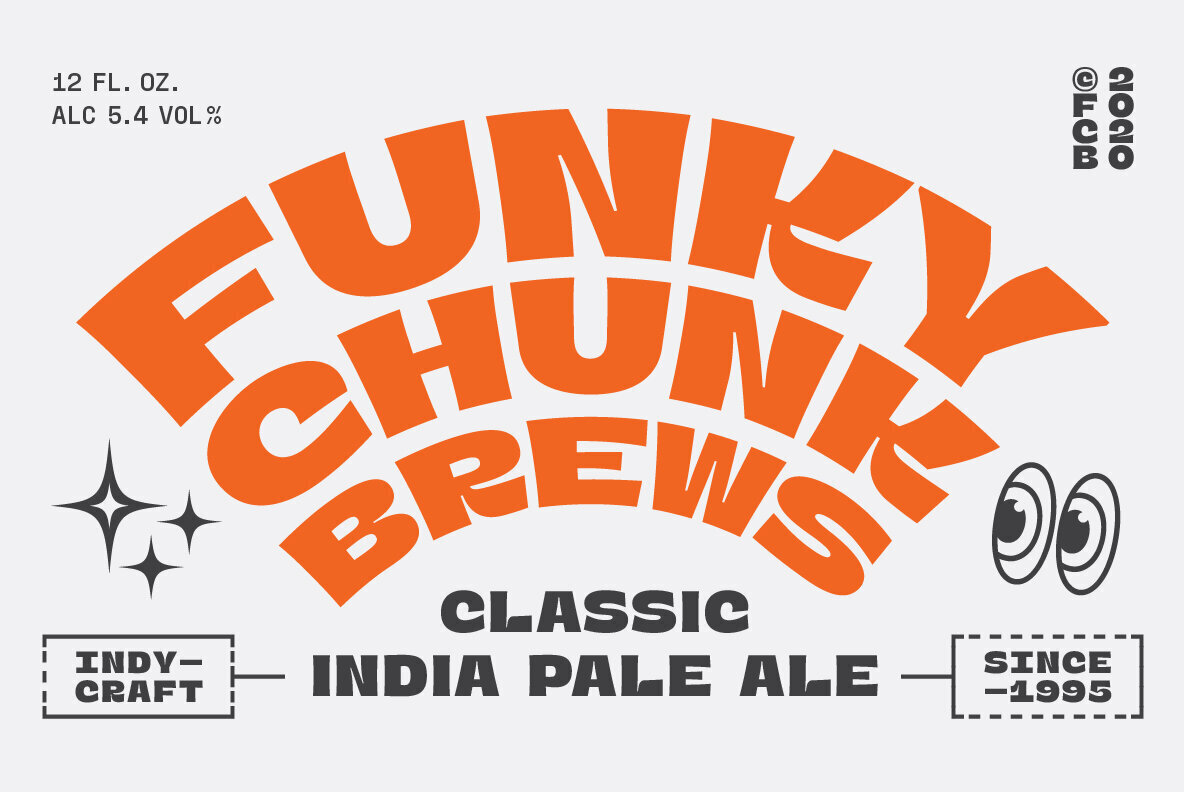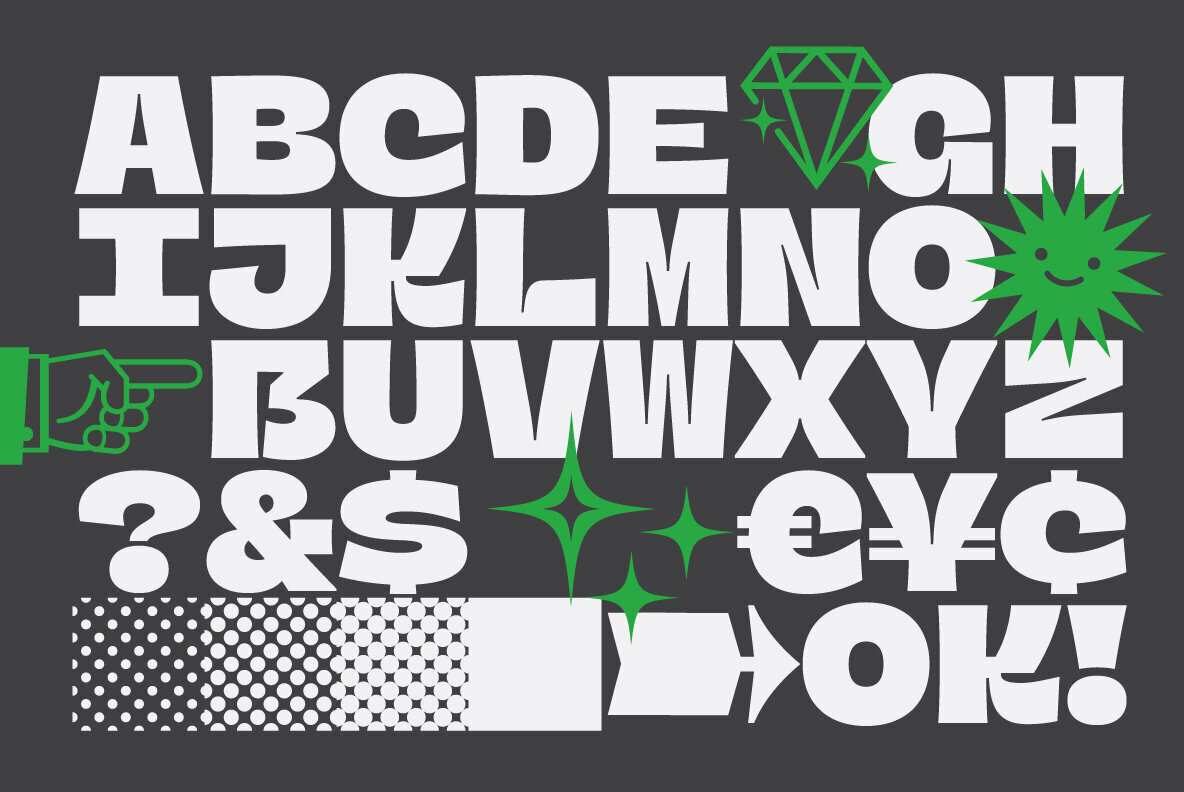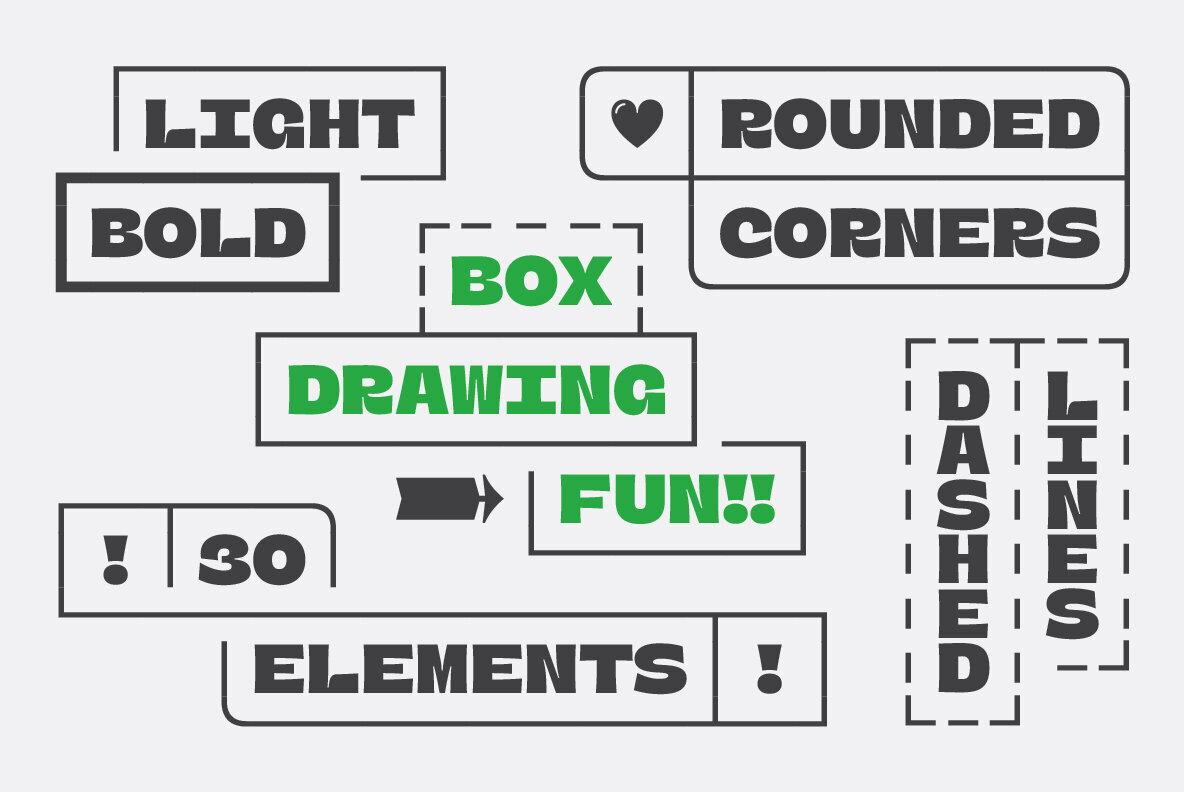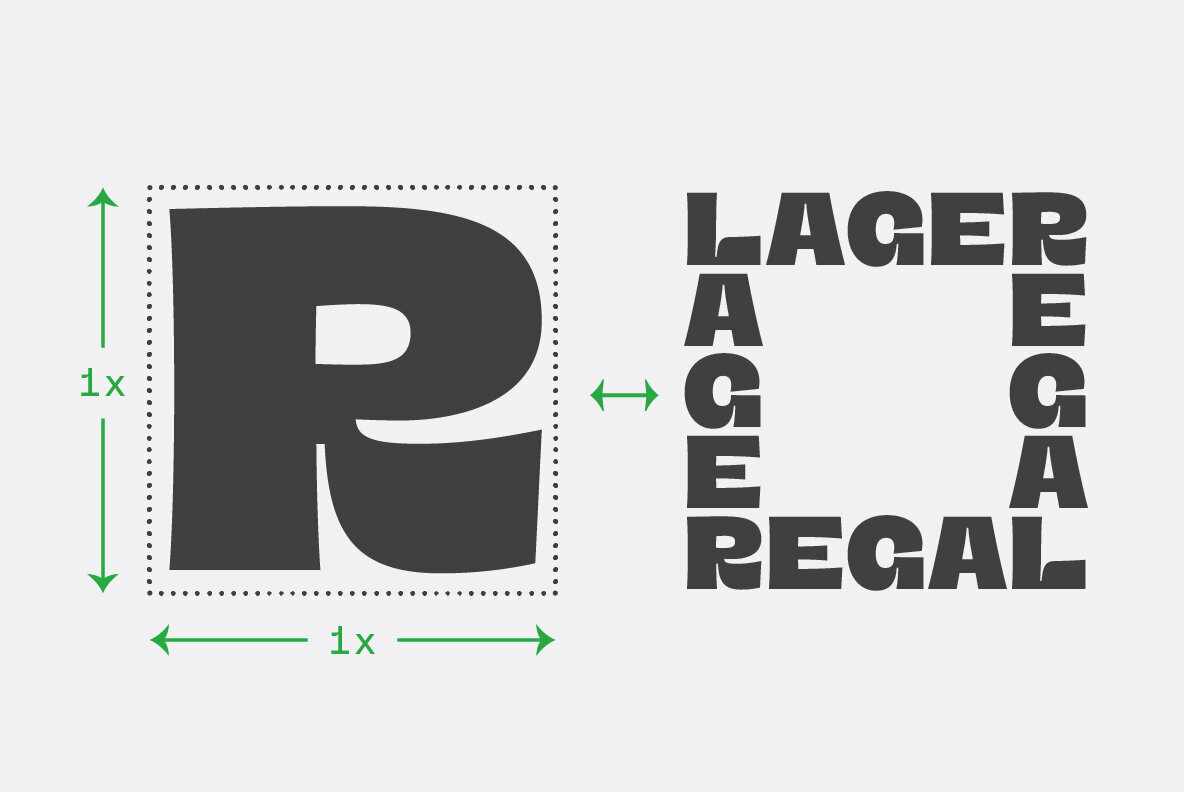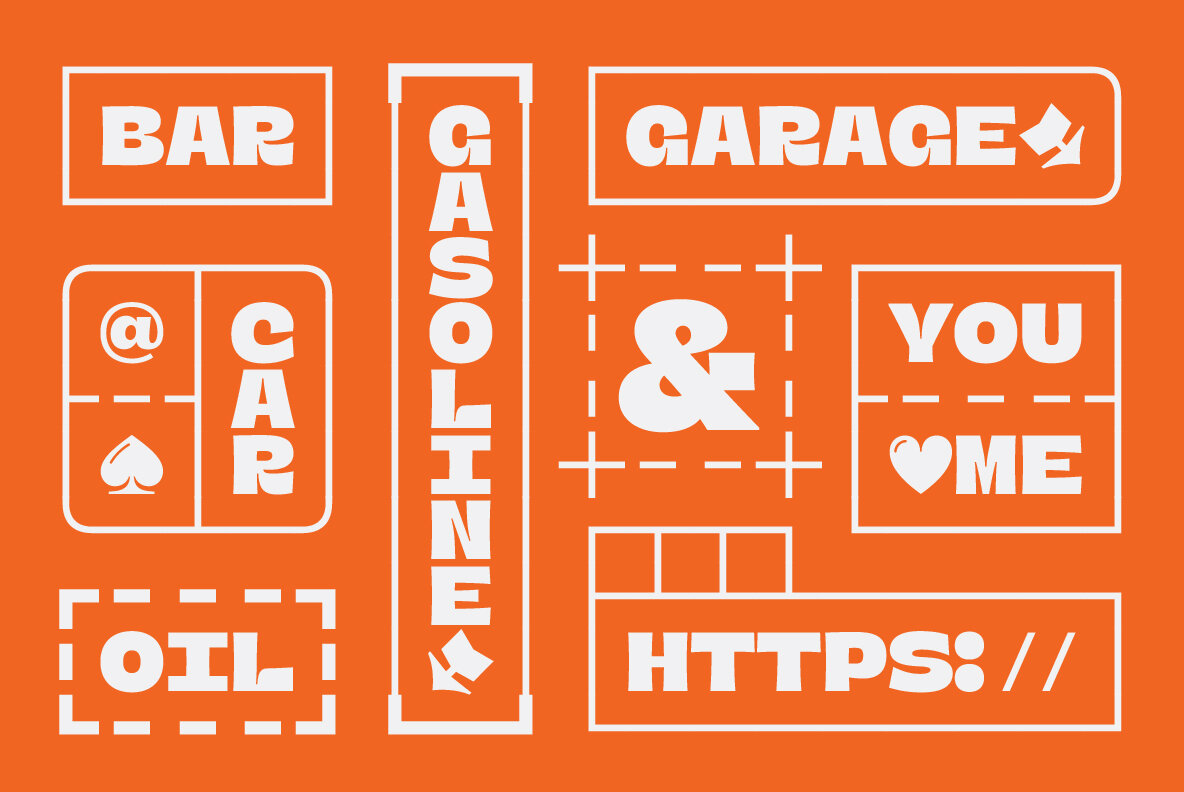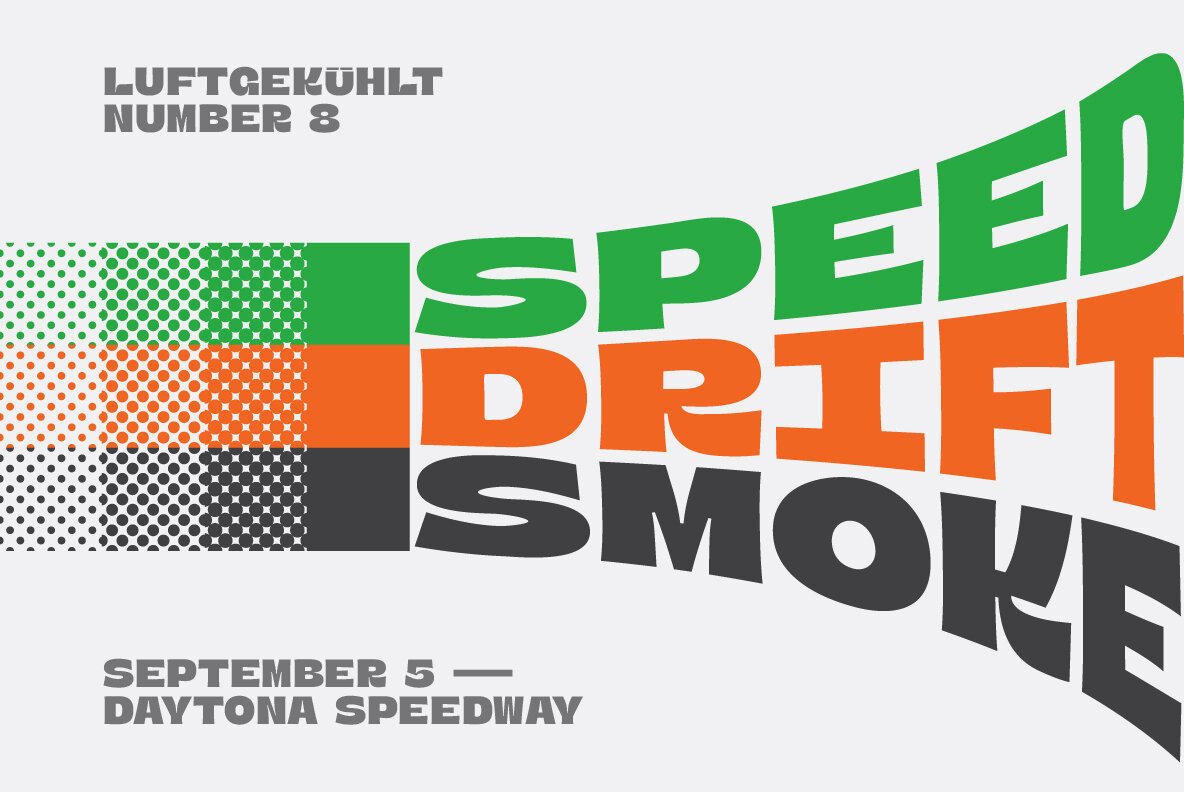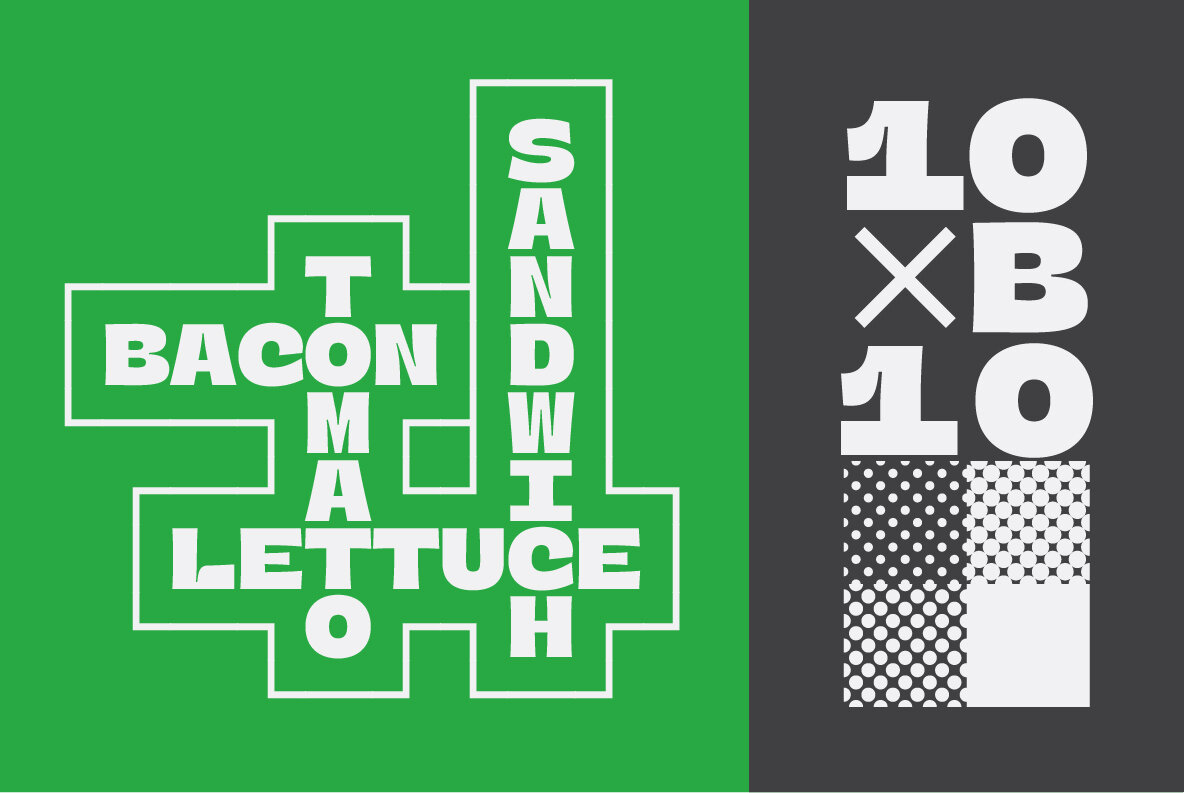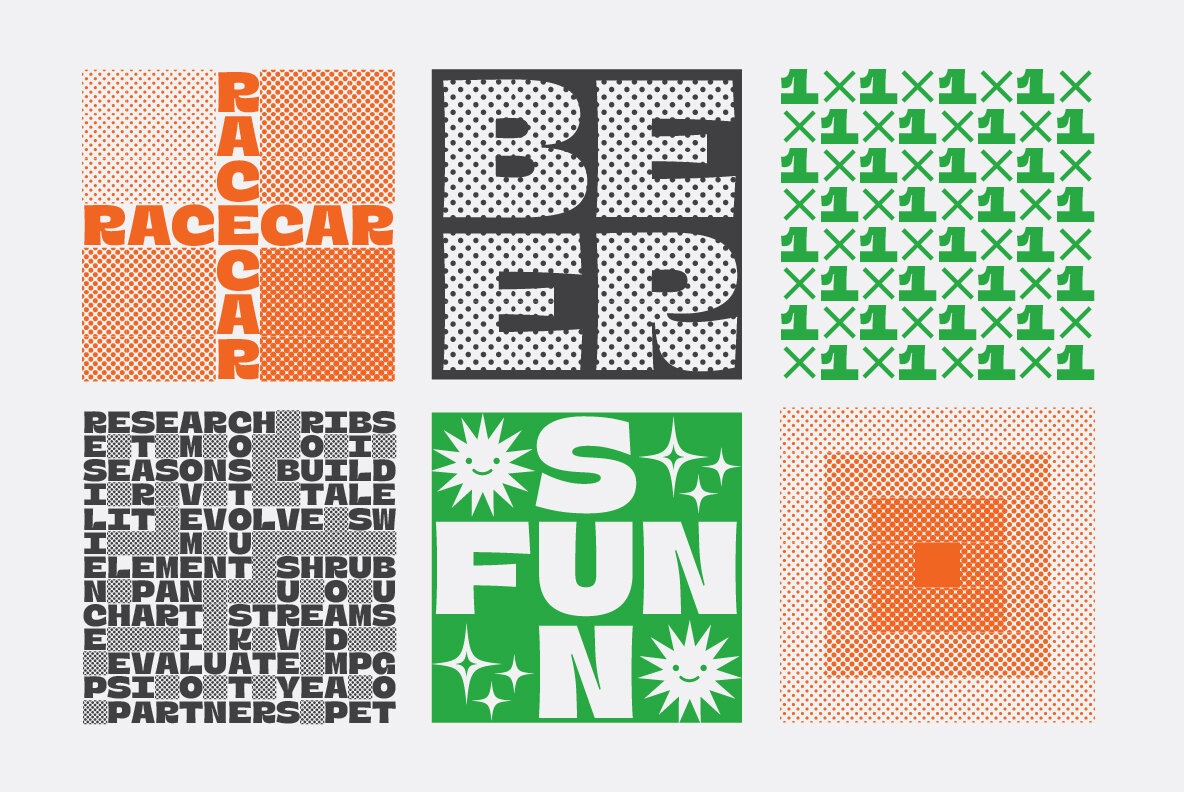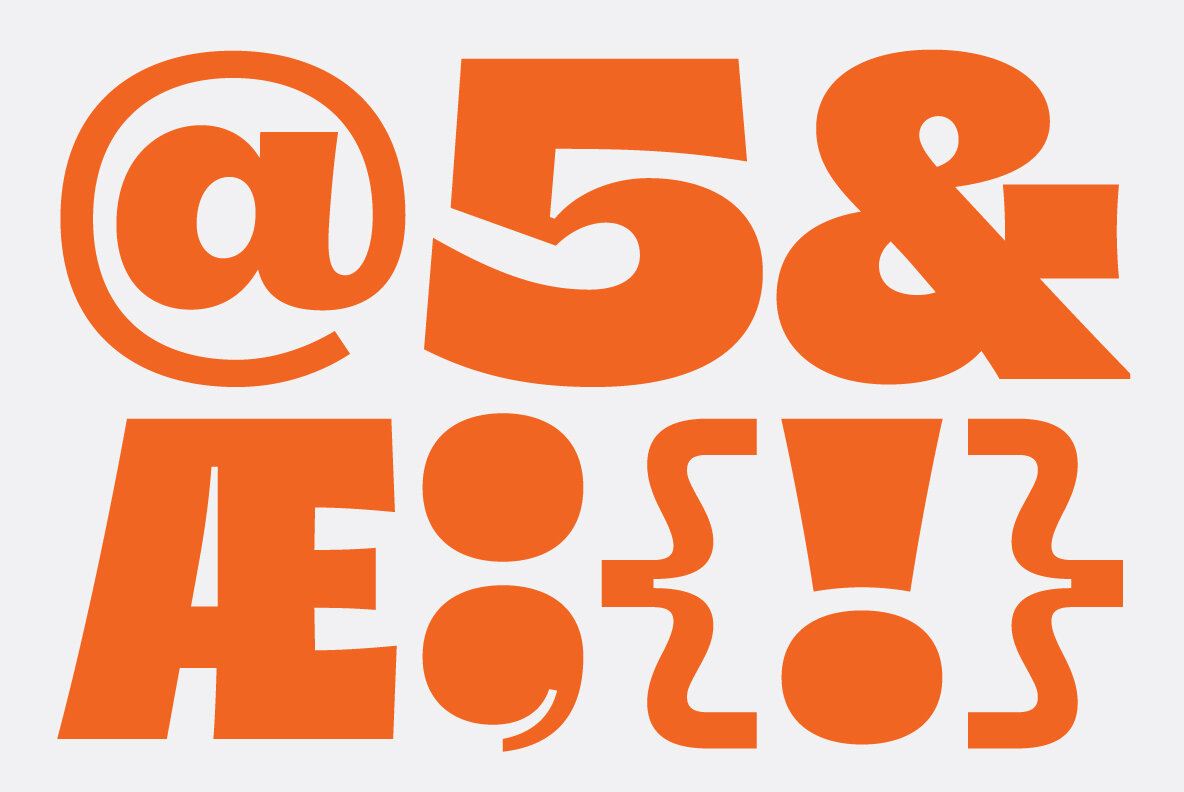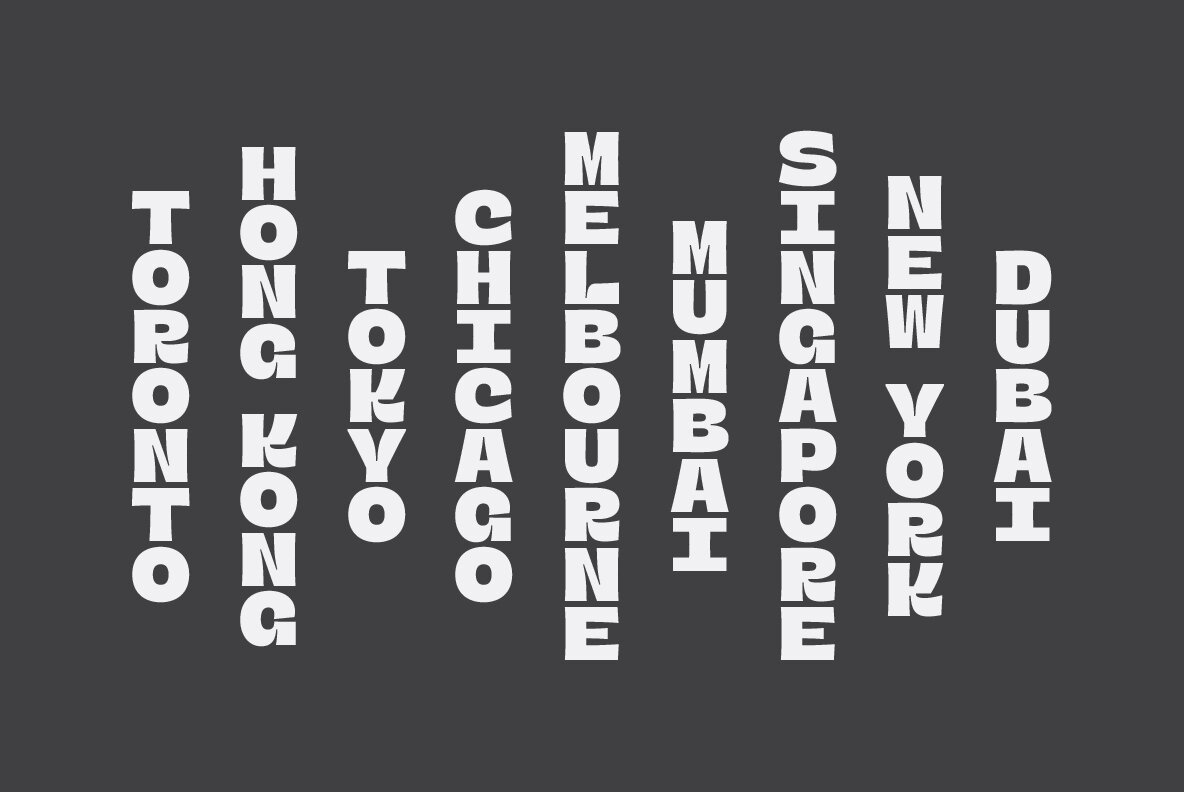
OBO Star 1
Juri Zaech is a recognized Art Director and type designer from Switzerland. His typefaces are both utilitarian and artistic. They come packed with practical OpenType features to enhance usability and are also a canvas for striking design. Licensed by some of the most iconic brands in the world and your indepen...